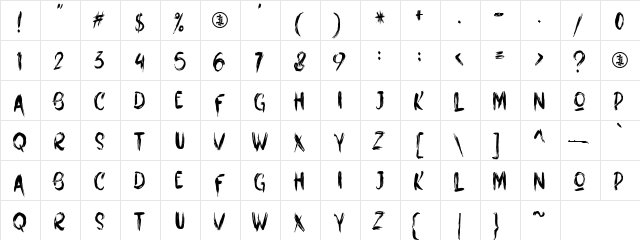
Fredbones Personal use Only Regular
Design Context for Fredbones Personal use Only Typeface
Fredbones Personal use Only is a composed and adaptable typeface that performs quietly and consistently across a wide range of design contexts.
Pro Tip: Use Fredbones Personal use Only in both headline and body roles to test its range before committing to a single application.